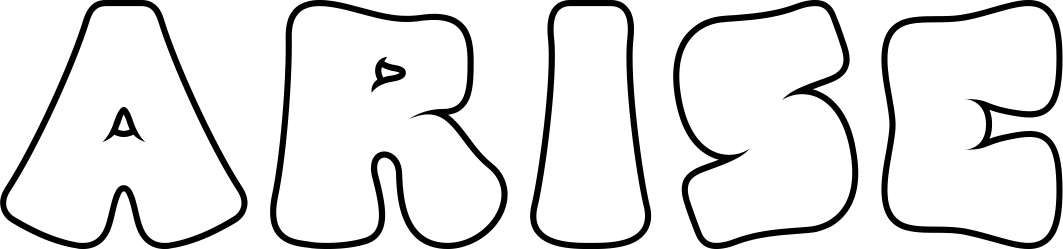
Arise Logo Font
Designed byMatteo Marco Milazzo
Arise Logo font with fat and balloon design can be used for many animation posters, food packaging, and breakfast menus. This kid font can be the best choice for branding food products, toys, and children’s T-shirts due to the two different types and even with the absence of small letters.
For any commercial use contact Matteo Milazzo at .The first letter I created is the “A” and is inspired by the logo Arise, my own T-shirt brand.